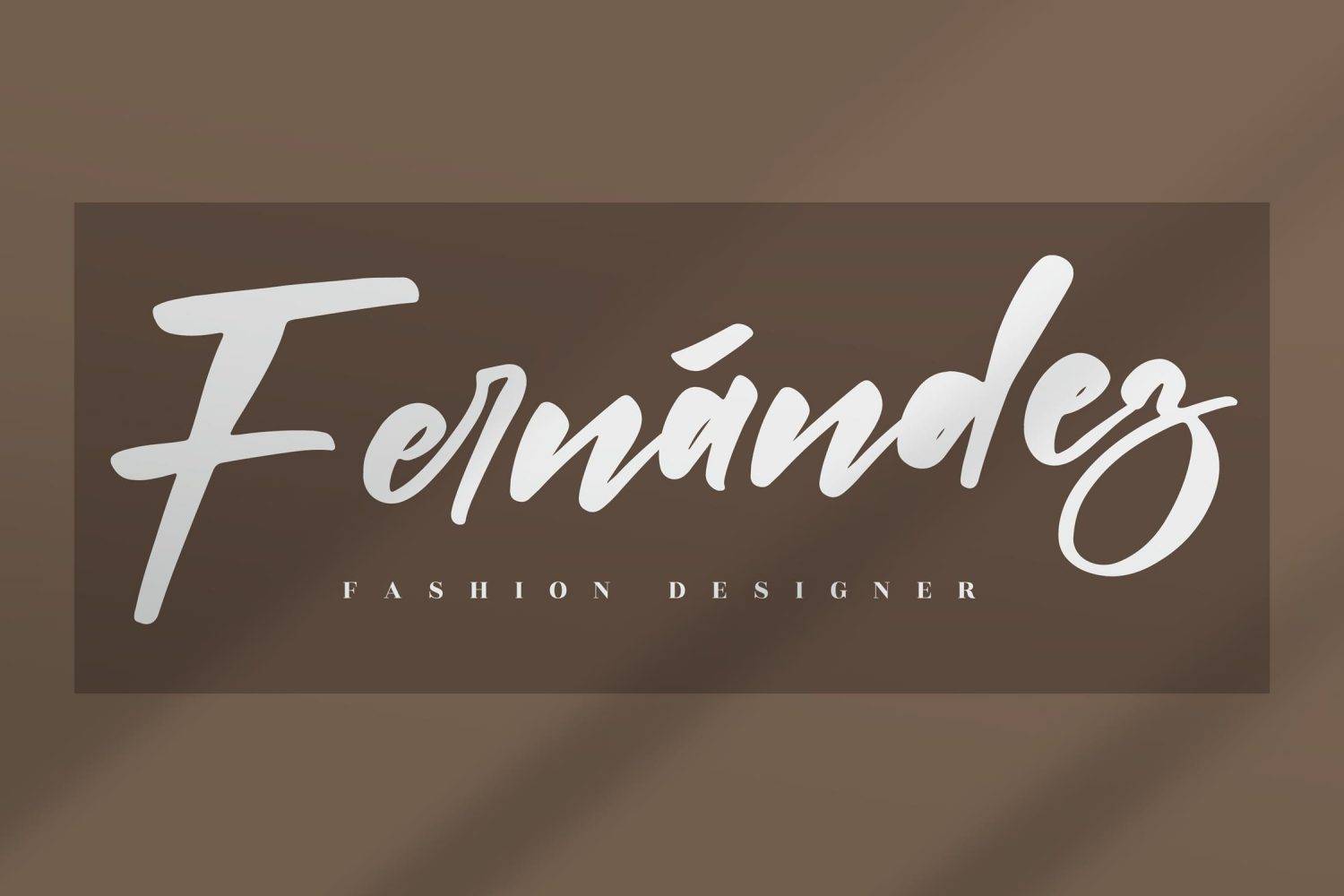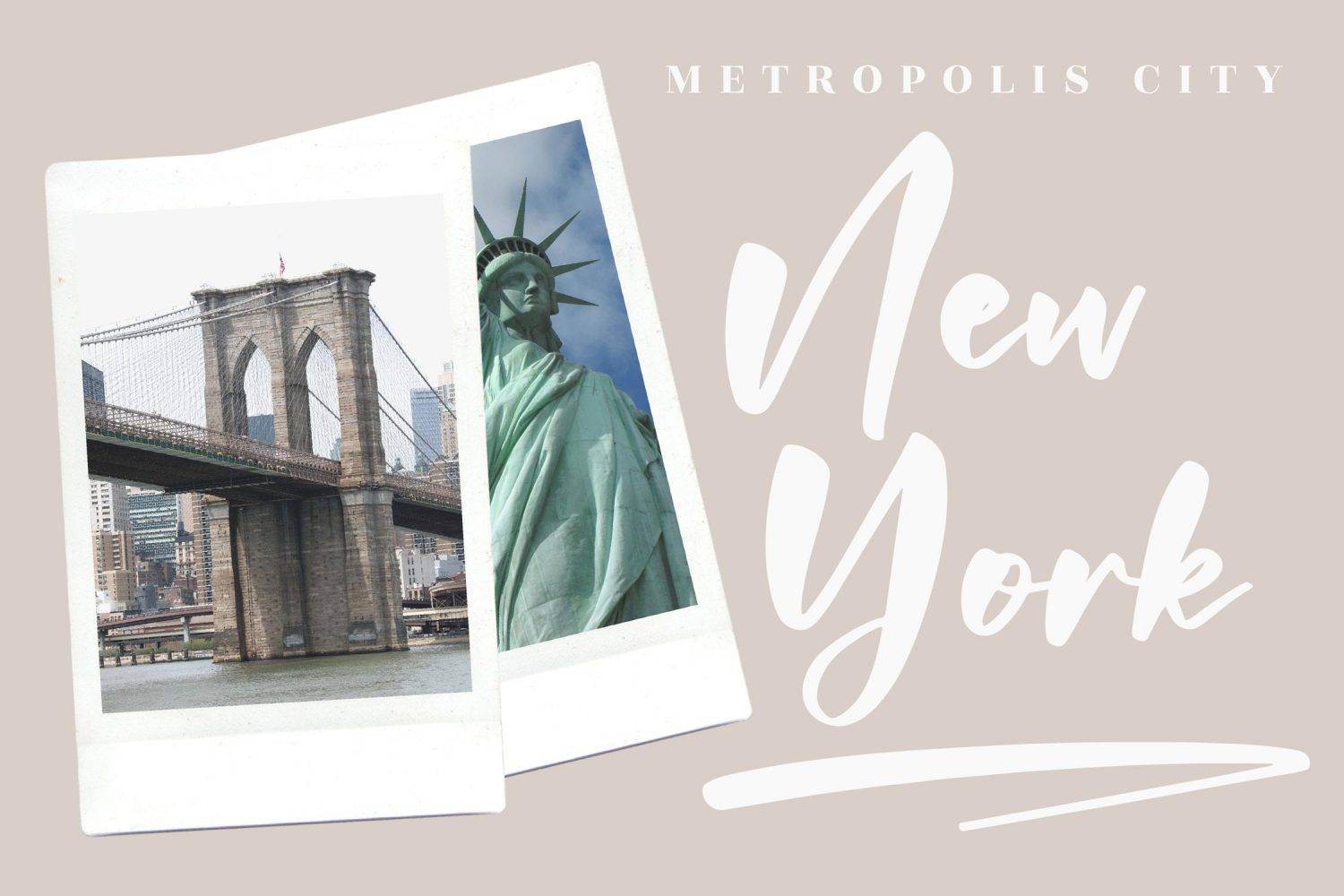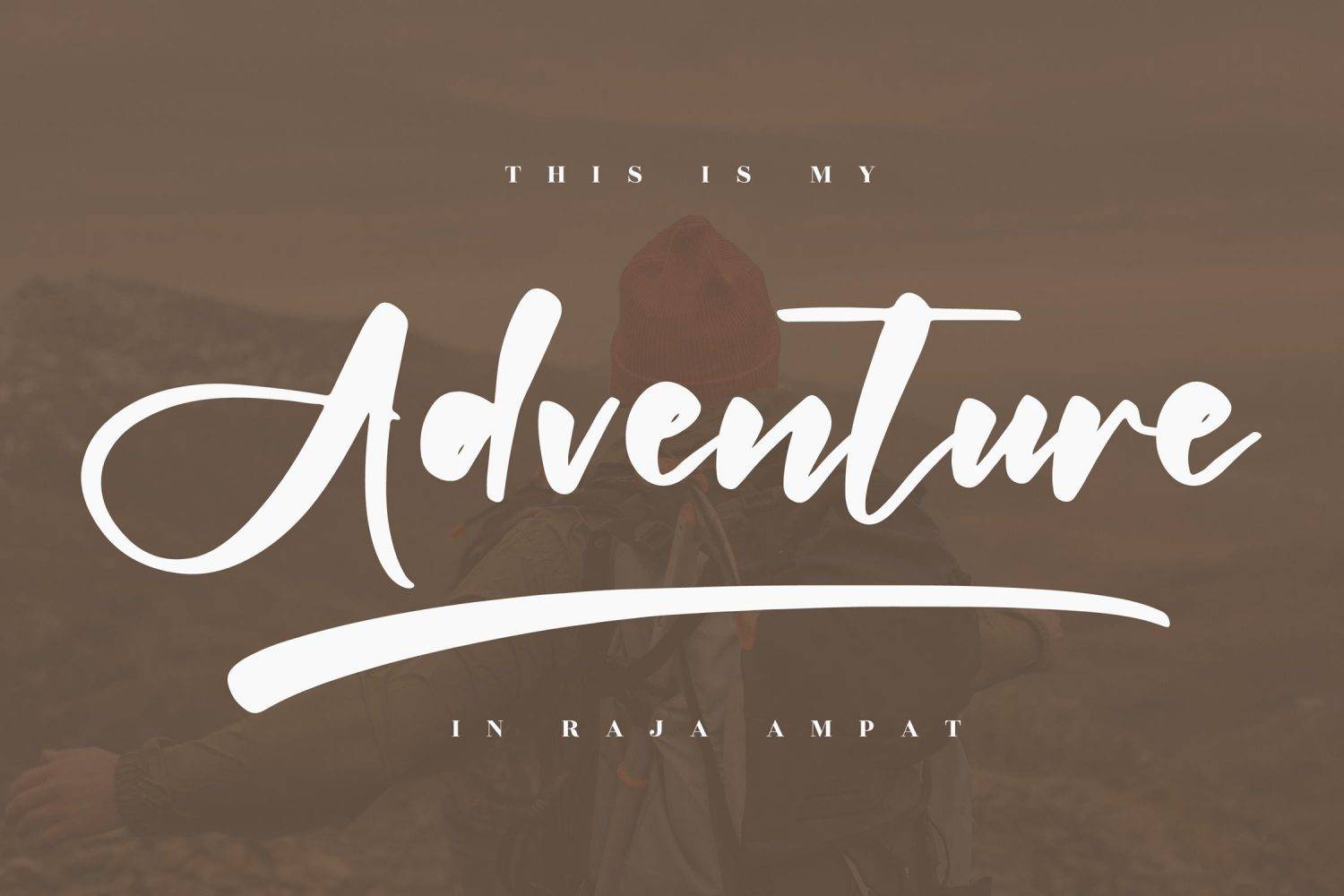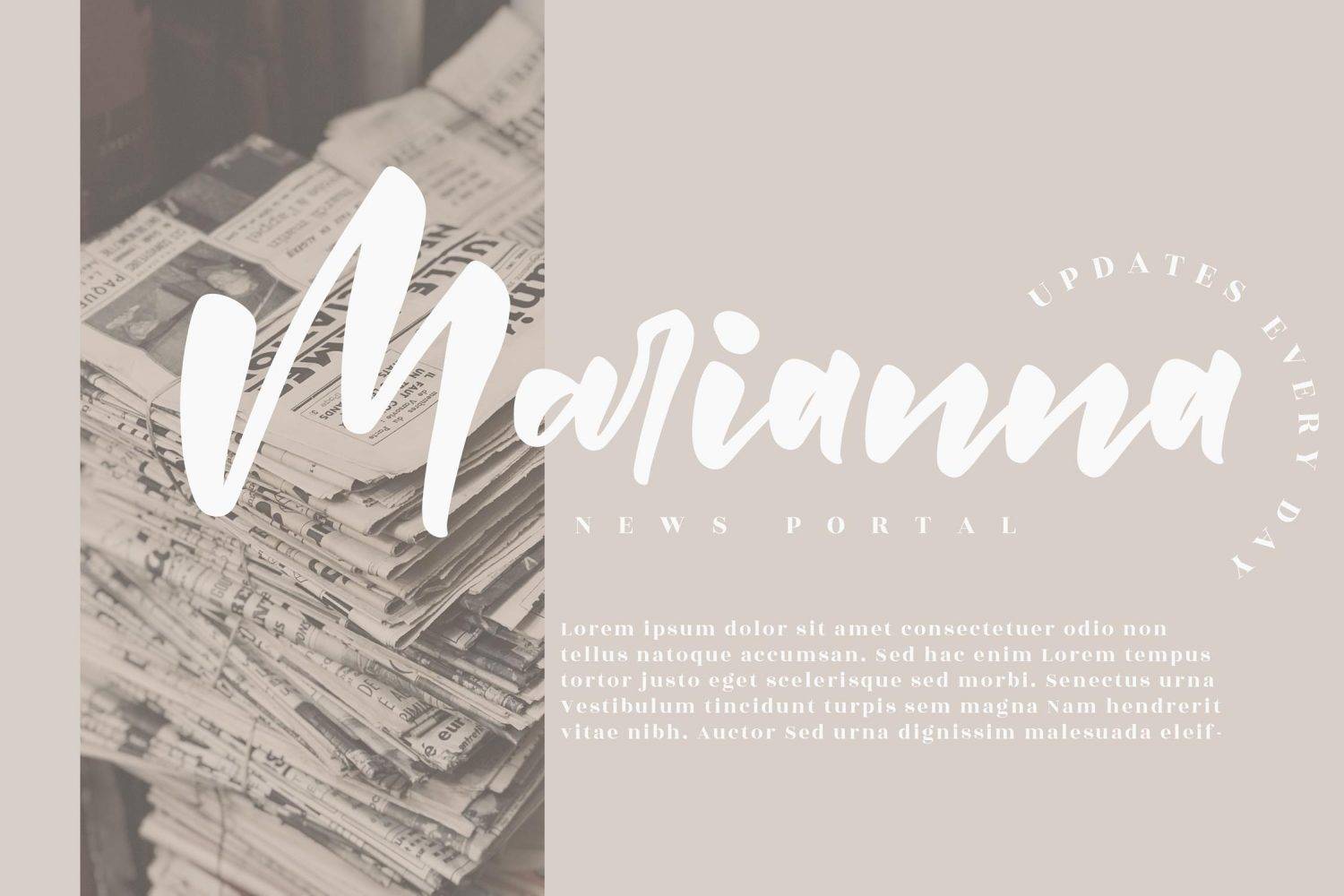
Abigaila is a lively script font with bold, brush-like strokes that convey a casual yet artistic feel. Its dynamic letterforms, featuring flowing, connected lowercase and expressive uppercase characters, make it ideal for creative branding, invitations, and eye-catching headlines where a personal, handcrafted touch is desired. This font shines in projects that want to blend playfulness with elegance without losing readability.
Abigaila Font
About Abigaila Font